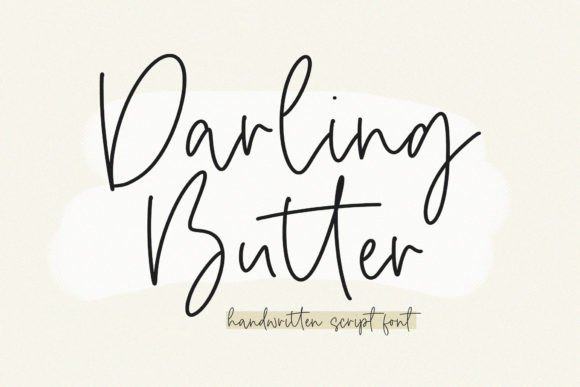
Darling Butter Font: Elevate Your Designs with Elegance and Class
When it comes to creating visually stunning designs, the right font can make all the difference. For those seeking a lovely and delicate script font that exudes elegance and class, Darling Butter is an exceptional choice. This beautiful font was particularly crafted for designers who need a refreshing and beautiful look to enhance their creations.
What is Darling Butter Font?
Darling Butter is a meticulously designed script font that embodies sophistication and refinement. Its delicate strokes and elegant curves make it perfect for a wide range of design applications, from luxury branding and high-end product packaging to wedding invitations and digital marketing materials.
Key Features of Darling Butter Font
- Elegant Script Design: Darling Butter features a beautiful script design with flowing curves and delicate strokes, perfect for creating sophisticated and eye-catching text.
- Delicate and Refined: The font’s refined and delicate appearance makes it suitable for designs that require a touch of elegance and class.
- Highly Versatile: Darling Butter can be used for a wide range of design applications, including logos, branding, packaging, and digital marketing materials.
- Easy to Read: Despite its delicate nature, Darling Butter is highly legible, making it perfect for use in both print and digital designs.
How to Use Darling Butter Font in Your Designs
Darling Butter’s versatility makes it suitable for various design applications. Here are some examples of how you can use this beautiful font in your projects:
- Luxury Branding: Use Darling Butter to create sophisticated logos, business cards, and letterheads that exude elegance and refinement.
- Wedding Invitations: Add a touch of romance and elegance to your wedding invitations, save-the-date cards, and other wedding-related designs.
- Product Packaging: Elevate your product packaging with Darling Butter’s delicate and refined script, perfect for high-end products and luxury goods.
- Digital Marketing: Use Darling Butter in your digital marketing materials, such as social media graphics, email headers, and blog posts, to add a touch of sophistication and elegance.
Tips and Tricks for Using Darling Butter Font
To get the most out of Darling Butter, here are some tips and tricks to keep in mind:
- Pair with Neutral Colors: Darling Butter looks stunning when paired with neutral colors like white, black, and gray. Experiment with different color combinations to find the perfect fit for your design.
- Use for Headings and Titles: Darling Butter is perfect for use in headings and titles, where its elegant script can add a touch of sophistication and refinement.
- Experiment with Font Sizes: Don’t be afraid to experiment with different font sizes to find the perfect balance for your design. Darling Butter looks great in both large and small font sizes.
Pairing Darling Butter with Other Fonts
Pairing Darling Butter with other fonts can create a unique and visually appealing design. Here are some font pairing suggestions:
- Serif Fonts: Pair Darling Butter with serif fonts like Times New Roman or Georgia for a classic and elegant look.
- Sans-Serif Fonts: Combine Darling Butter with sans-serif fonts like Arial or Helvetica for a modern and sophisticated look.
- Script Fonts: Pair Darling Butter with other script fonts for a beautiful and elegant design.
Darling Butter is a beautiful and elegant script font that can elevate your designs with its refined and delicate appearance. With its versatility, elegance, and ease of use, Darling Butter is perfect for a wide range of design applications. Whether you’re a professional designer or a DIY enthusiast, Darling Butter is a great addition to your font collection.